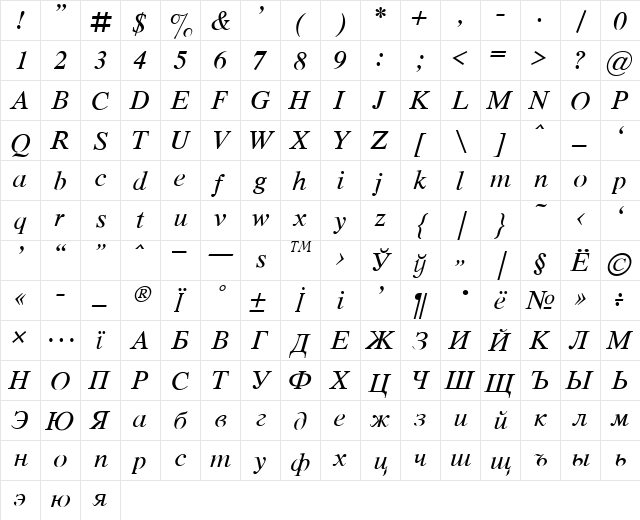
Respect Italic
Design Context for Respect Typeface
Respect is a composed and adaptable typeface that performs quietly and consistently across a wide range of design contexts. Its italic angle brings a sense of urgency and motion to the letterforms.
Pro Tip: Try Respect for annotation and caption copy alongside an upright companion — the contrast in angle creates a dynamic but ordered typographic system.